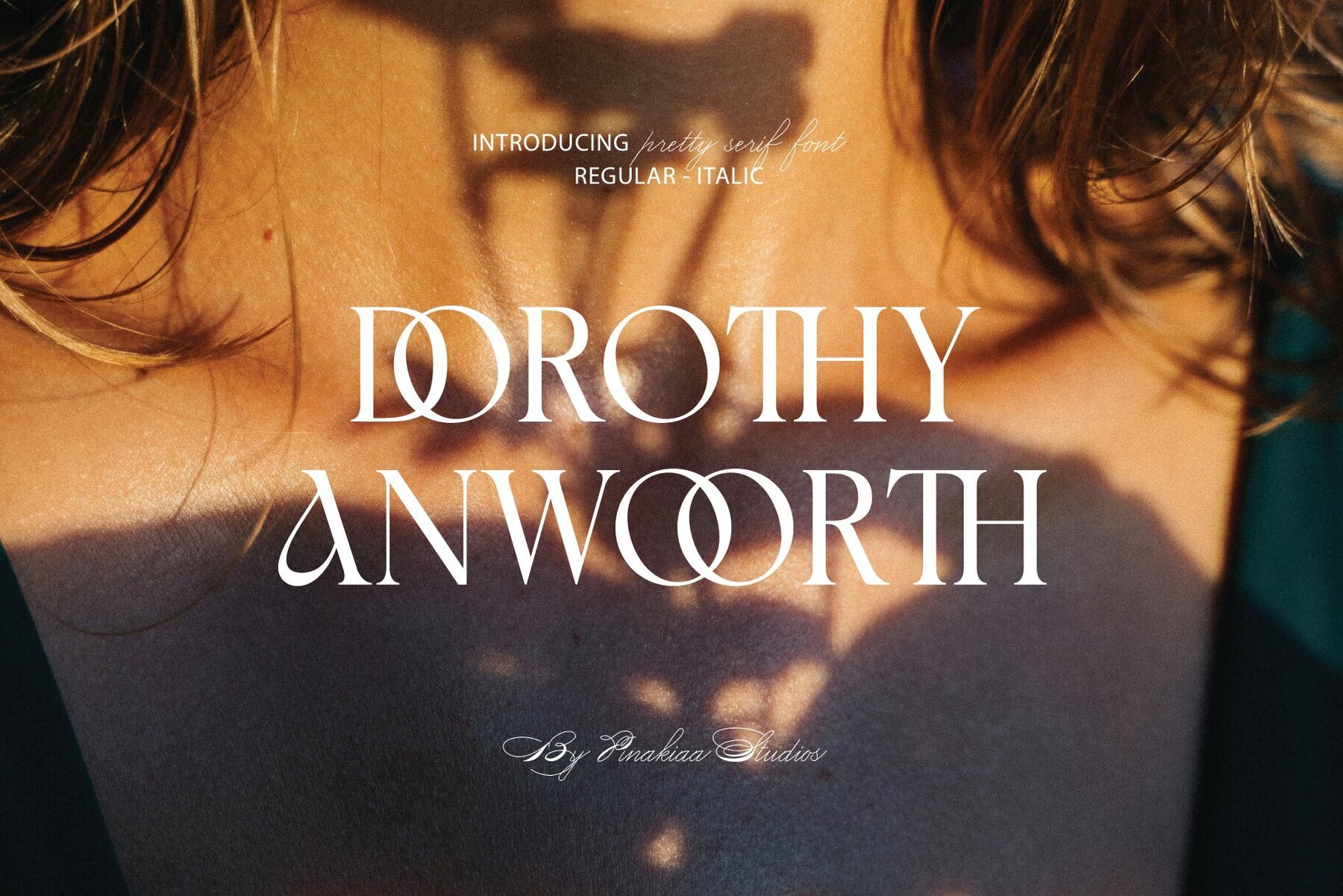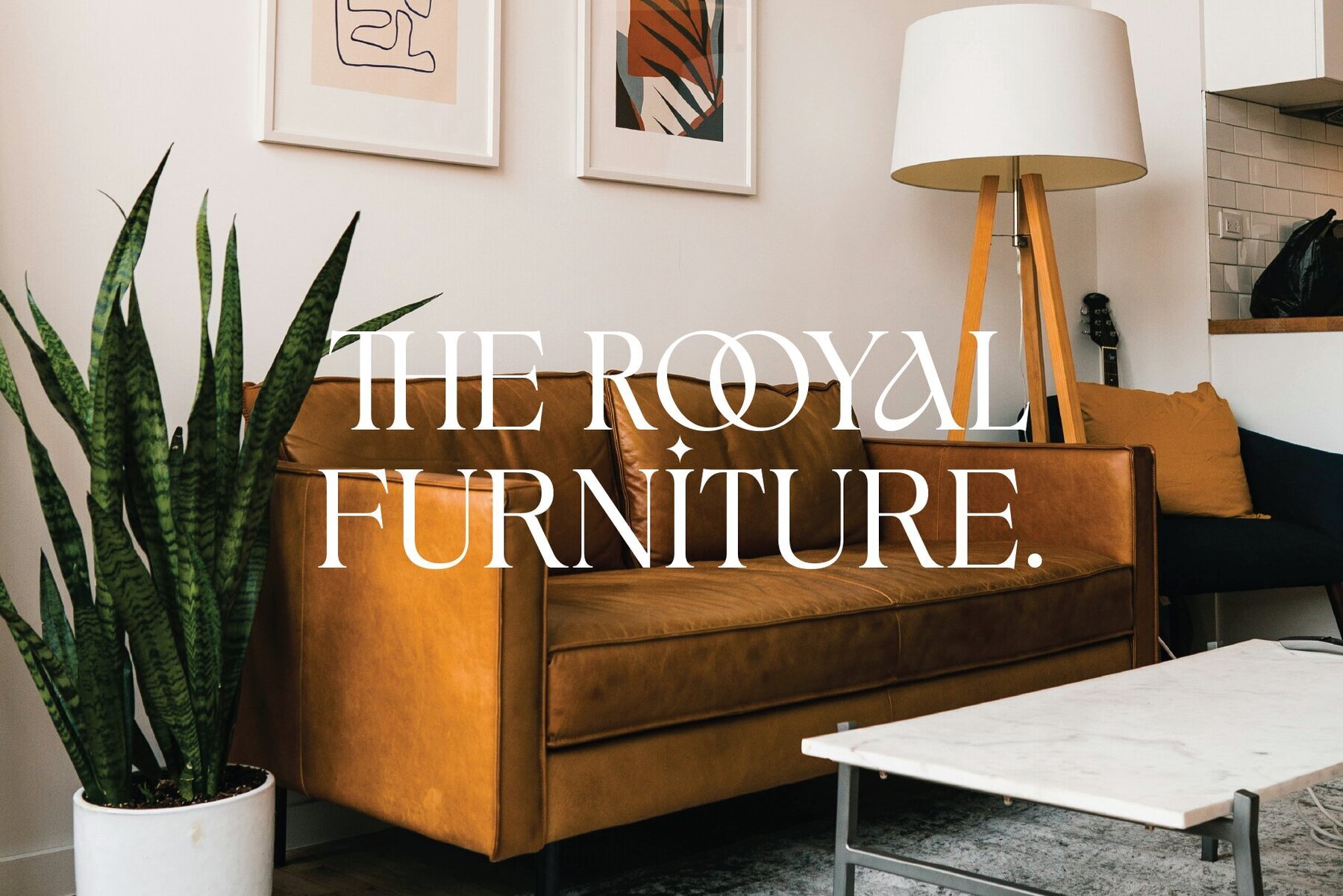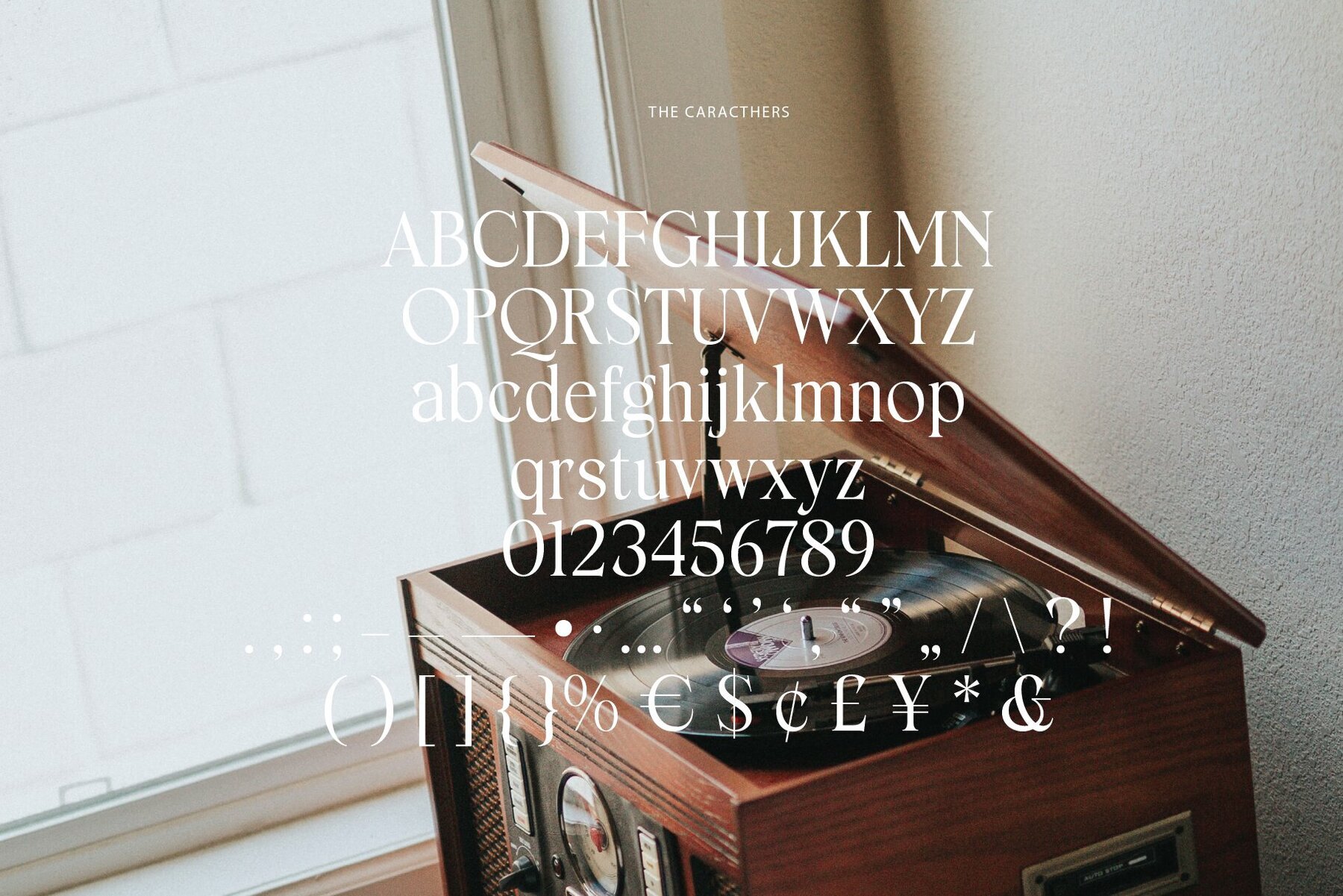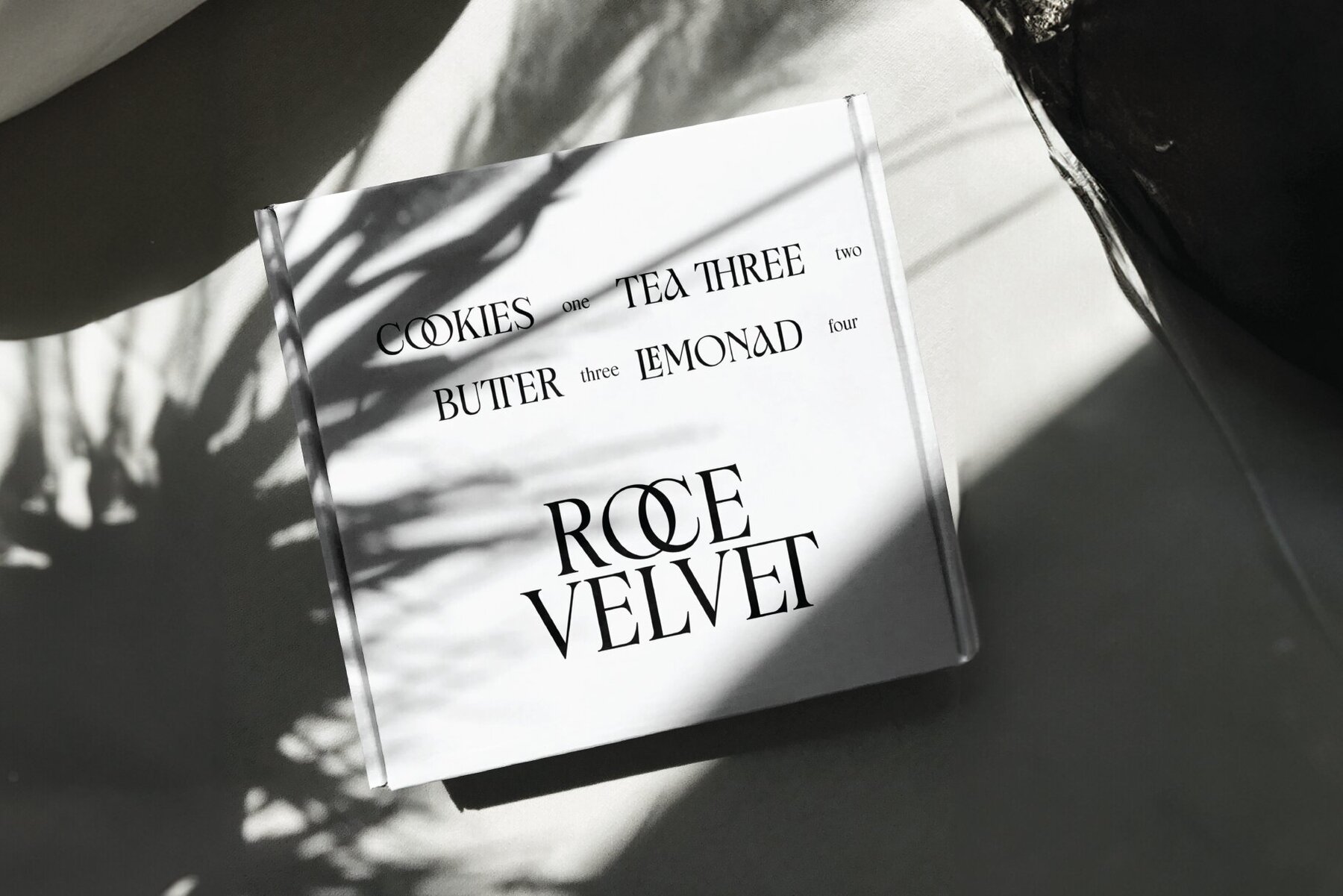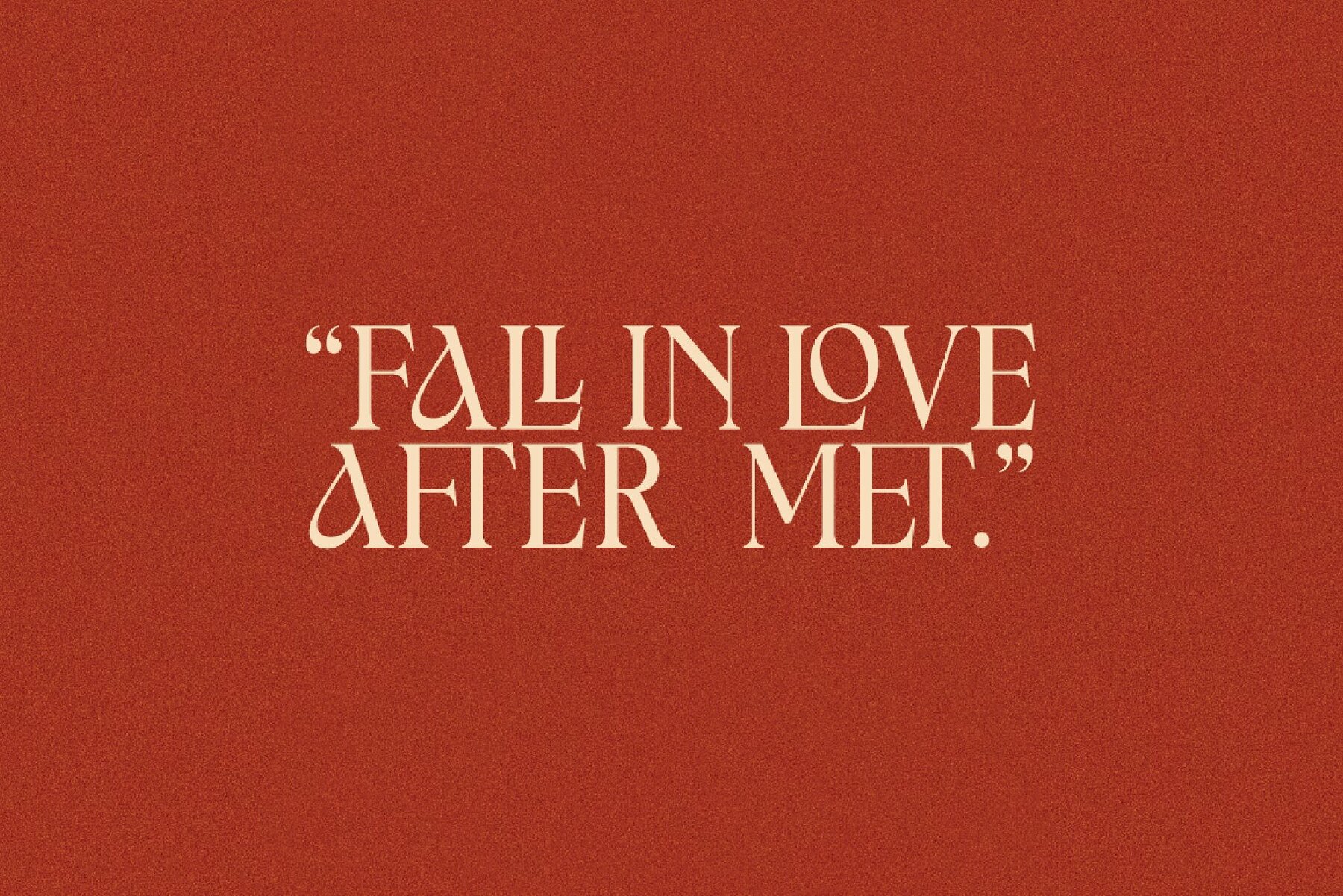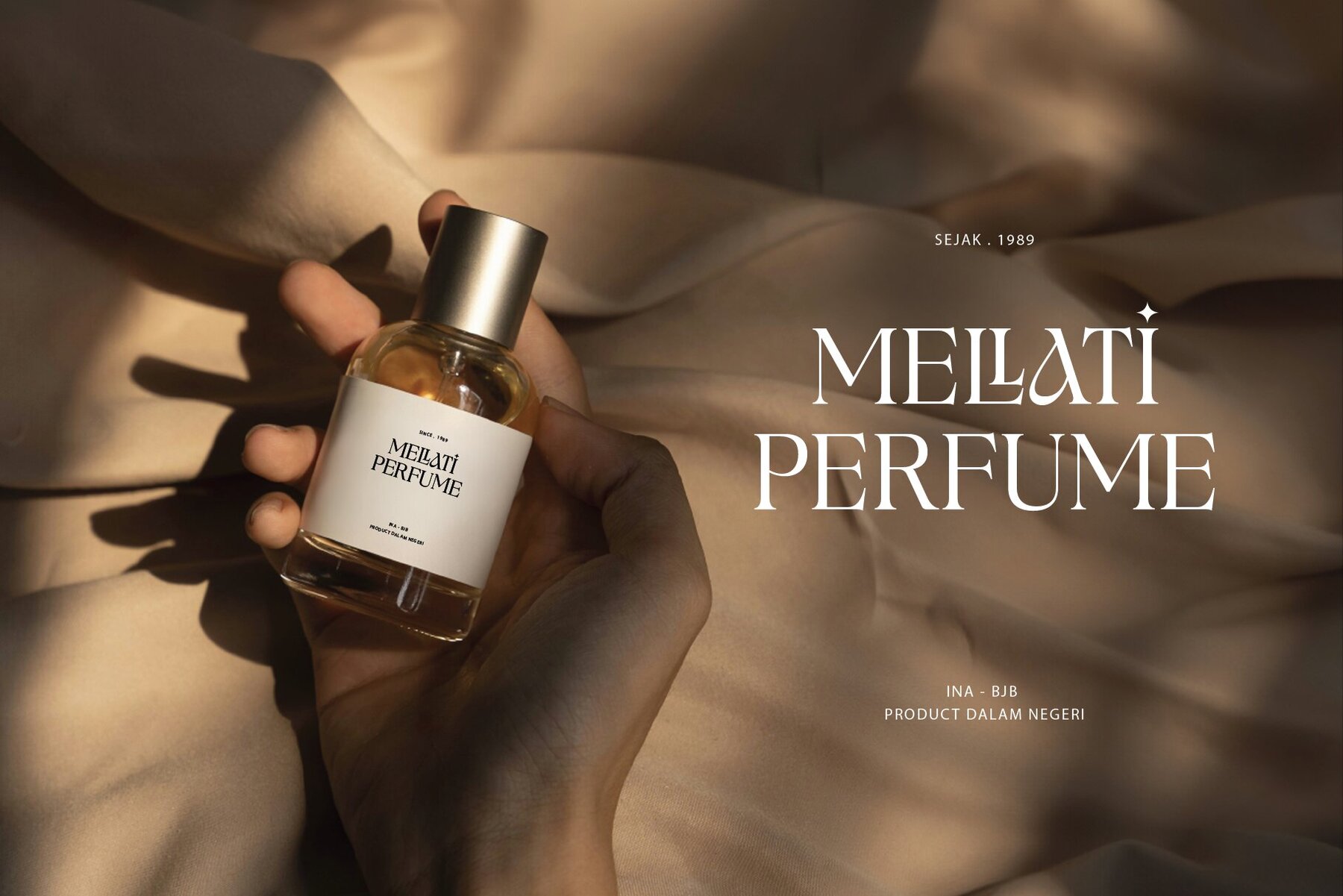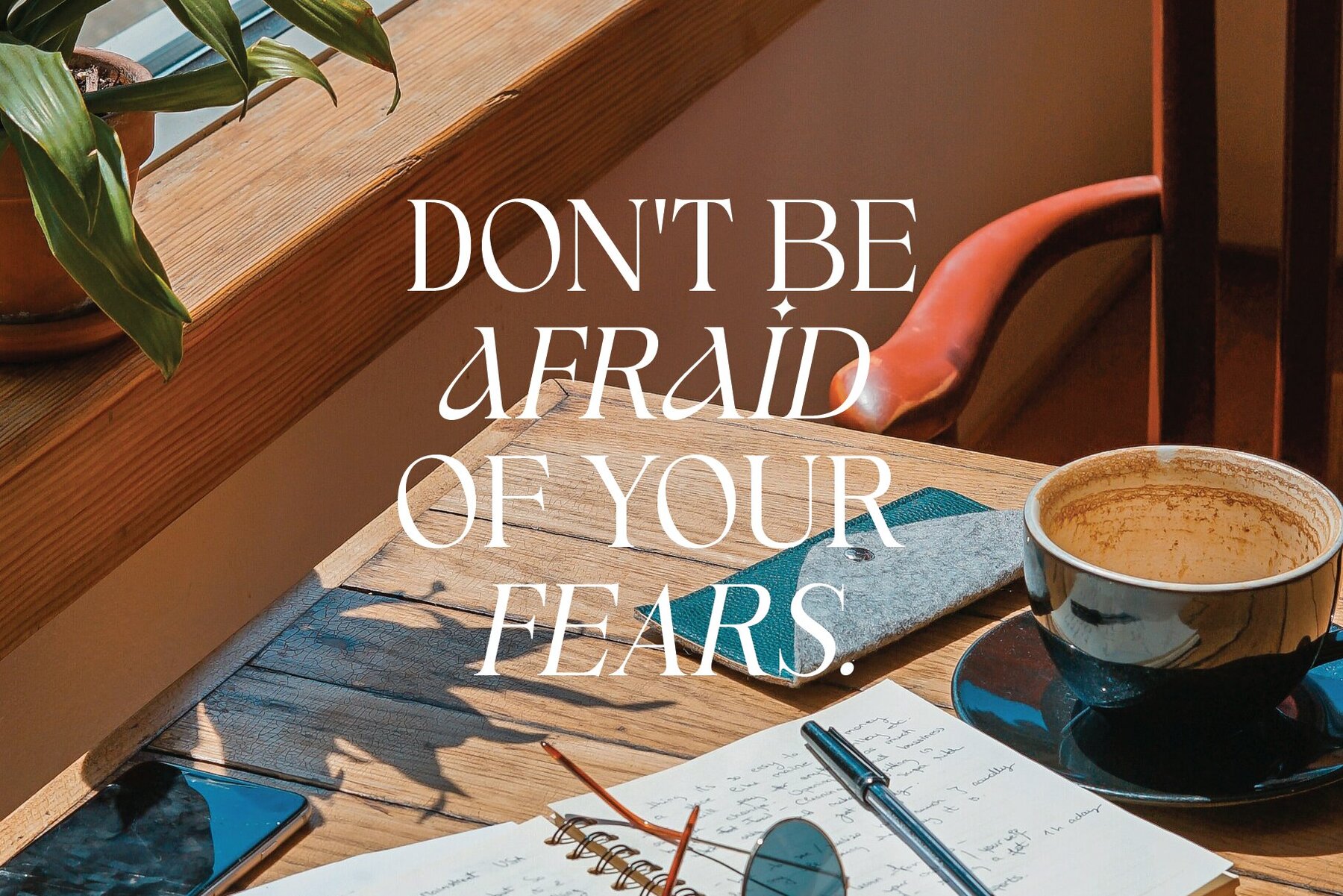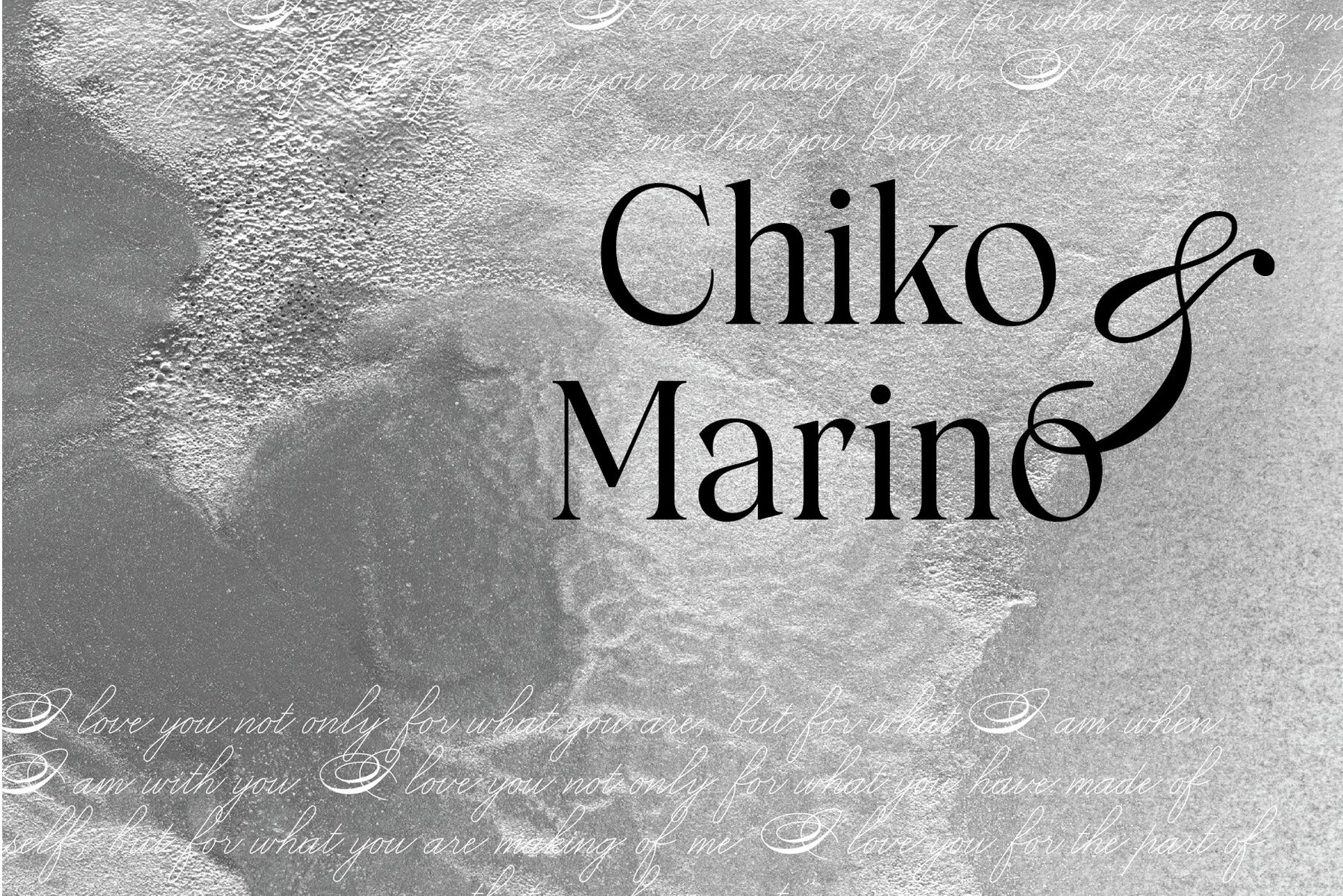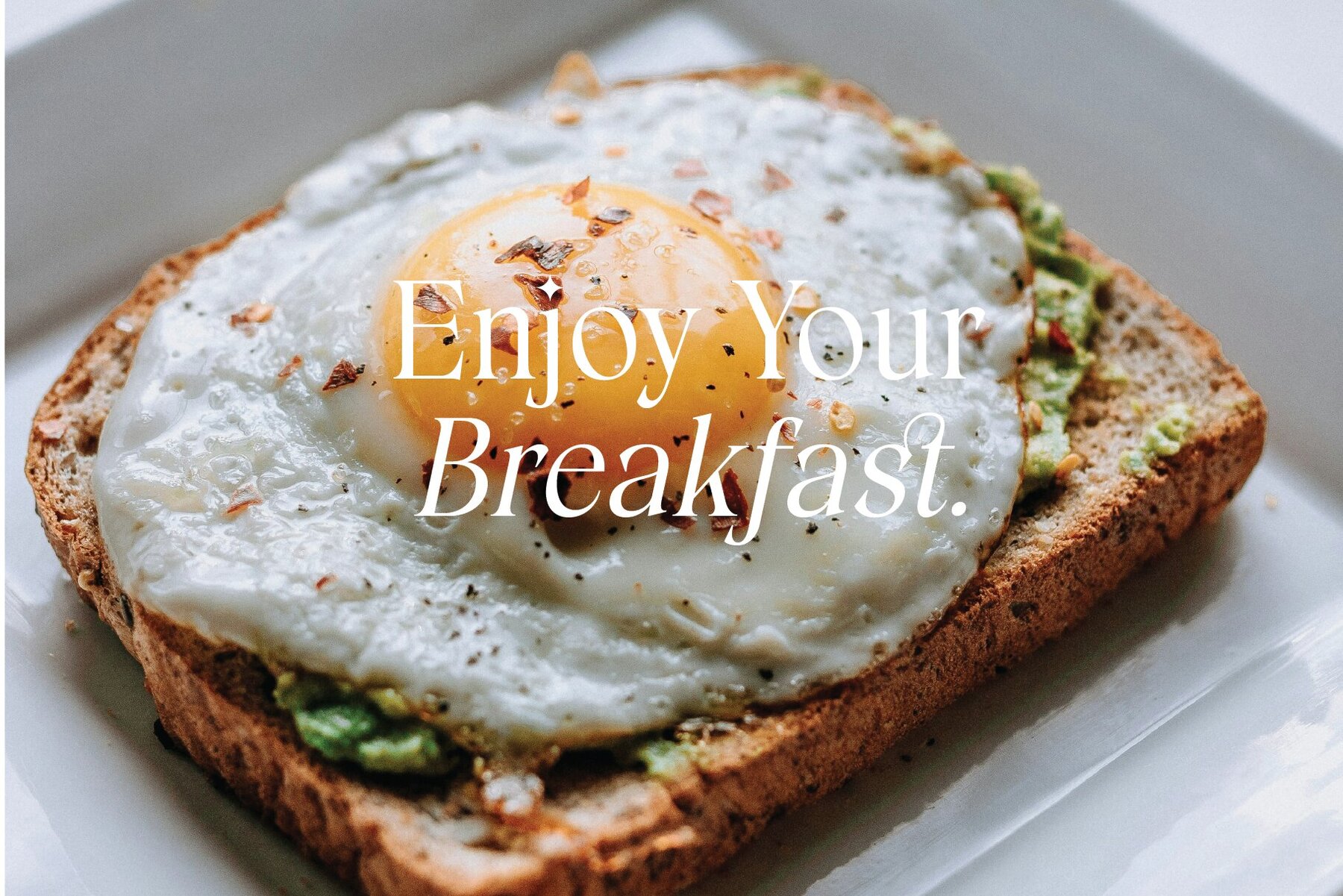
Dorothy Anwoorth Font
Dorothy Anwoorth is a sophisticated serif font that merges classic design elements with a modern flair. This elegant typeface is distinguished by its clean, polished lines, making it an ideal choice for high-end branding, editorial projects, and luxury invitations. Each letter is meticulously crafted to ensure optimal legibility while maintaining a refined and classic aesthetic.
Perfectly suited for both print and digital applications, Dorothy Anwoorth exudes a touch of sophistication and professionalism. Its versatility makes it a valuable asset for any designer seeking to infuse their work with an element of elegance and timeless style.